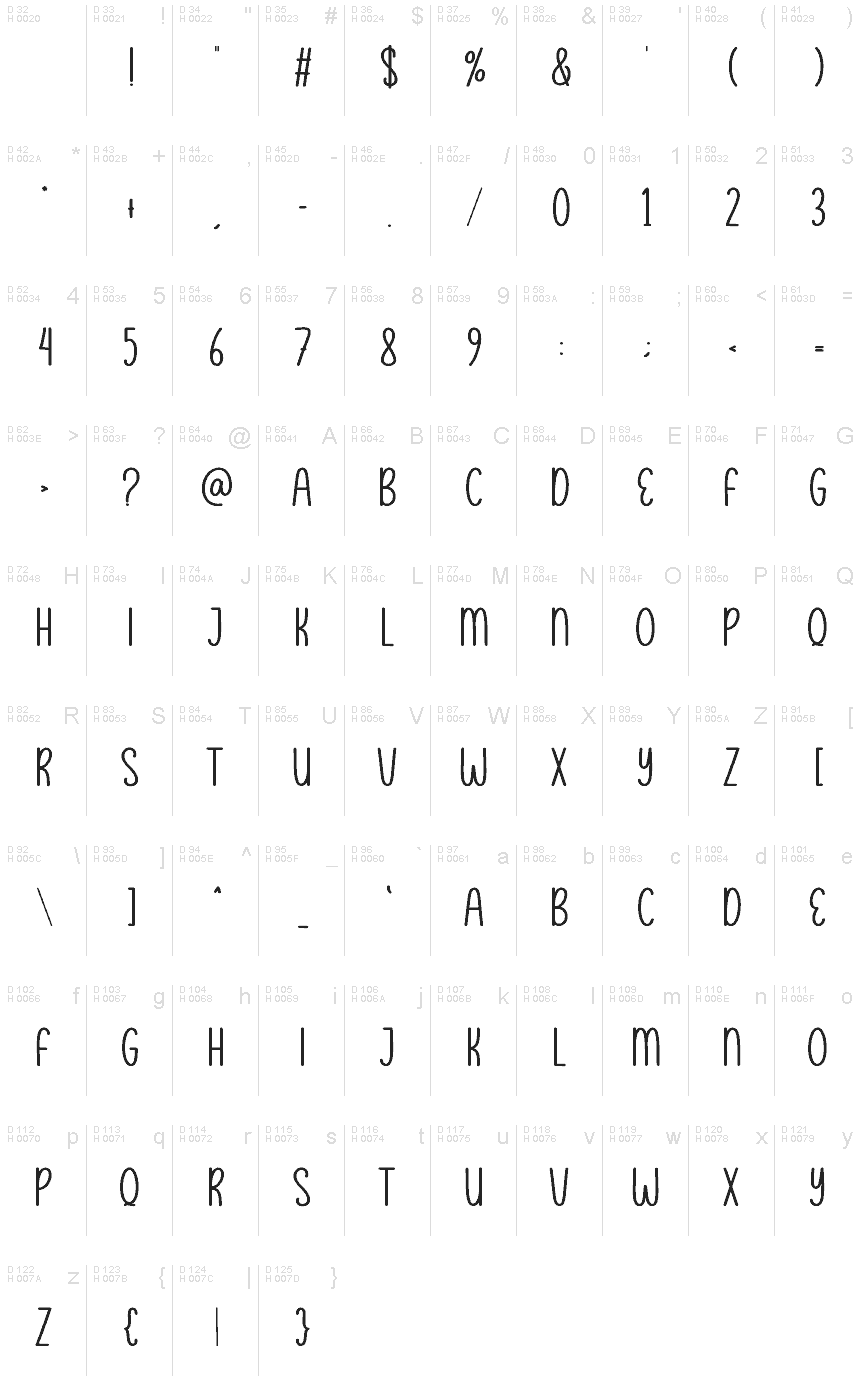
Airplane Pilots
Airplane Pilots font by Andi Moz is a handwritten font which displays condensed letters and numbers. The light style of this typeface gives it a charming and approachable feel reminiscent of mid-20th century design. Inspired by retro vibes, the humanist, casual, and friendly look is suitable for modern branding in diverse industries.
Airplane Pilots will make a great addition to any design project that requires identity with personality such as fashion business logos, product packaging, restaurant menus, T-shirt designs, or boutique shop signs. Its use can also be extended to book covers for children’s books or travel magazines to posters and social media posts.